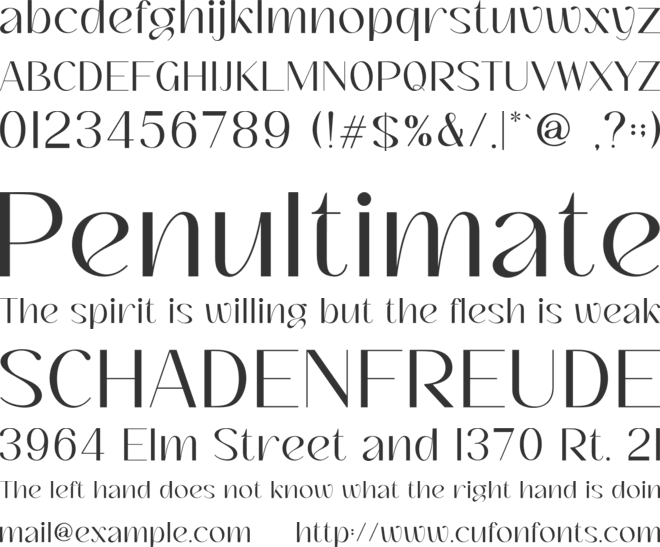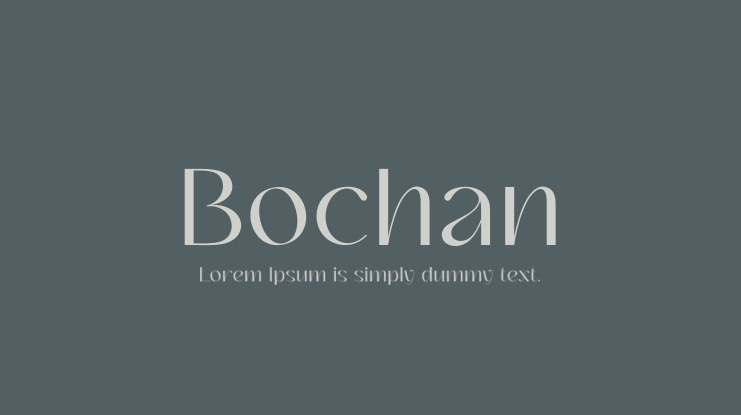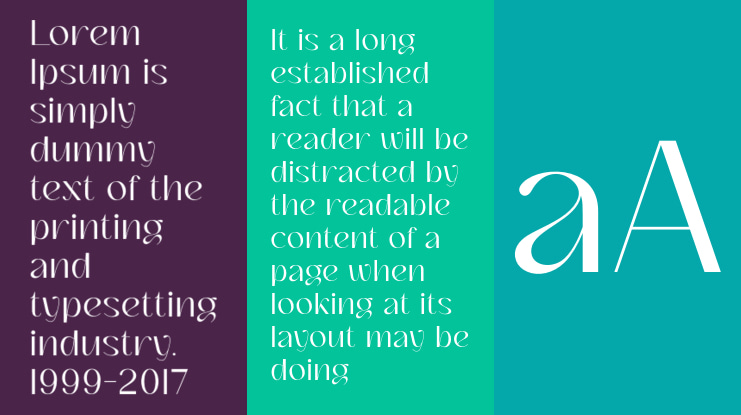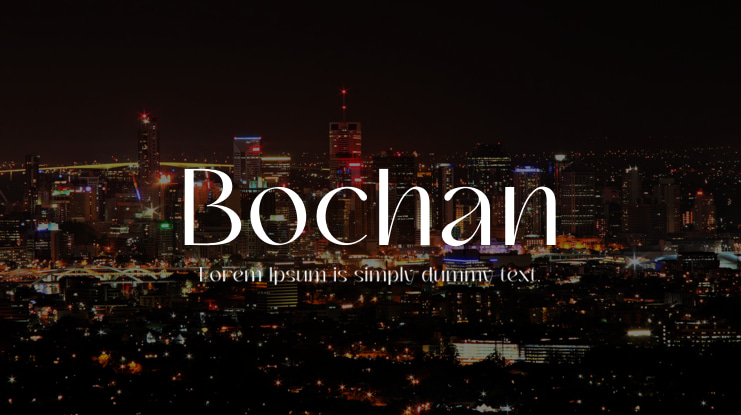
Bochan Font Family
Bochan Display Sans Serif Font - Free Serif Font! (personal use!)
Bochan is incredibly elegant and beautifully rounded sans serif and also include with serif version font that will add a timeless look to any design project!. Very suitable for logo, brand identity pack, packaging designs and many more